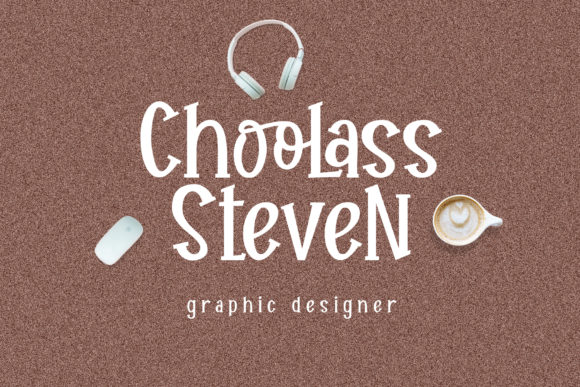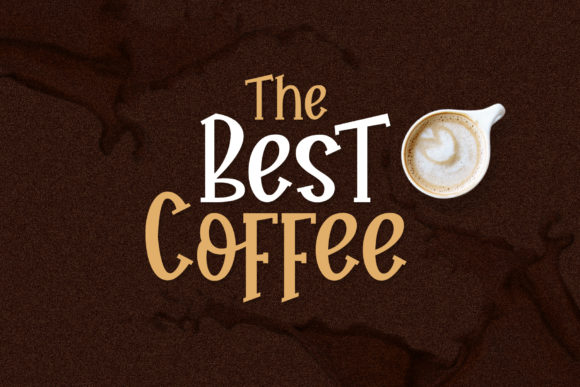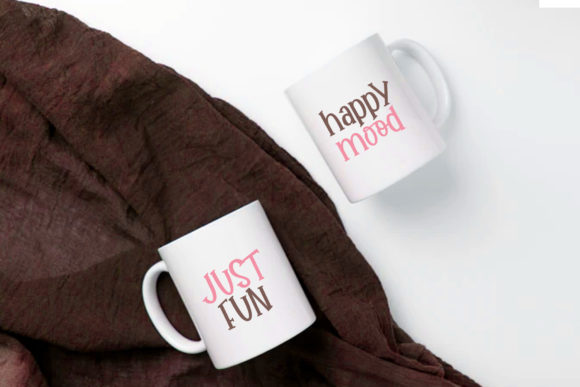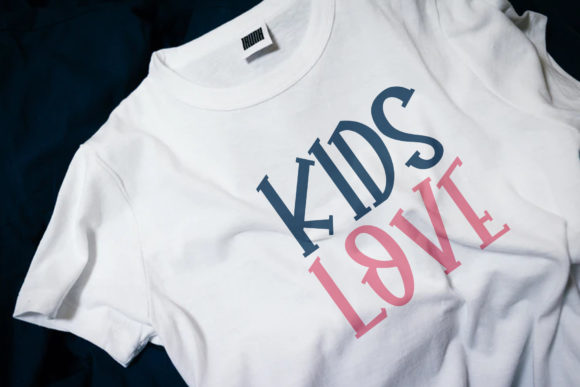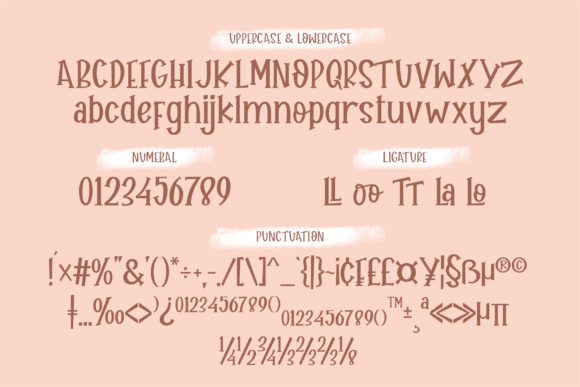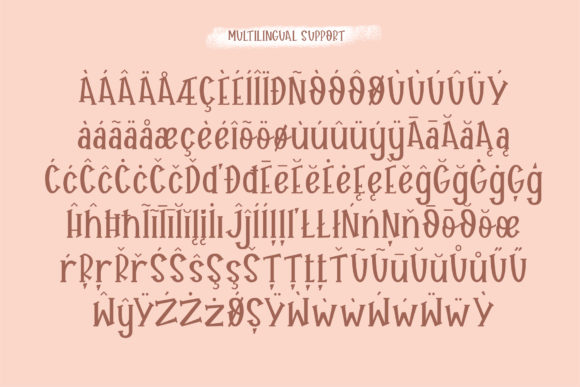
Introduction to Hellow Knight Font
Hellow Knight is a tasty new display font with a unique appearance.
It will add a charming touch to any crafting project .
Key Features of Hellow Knight Font